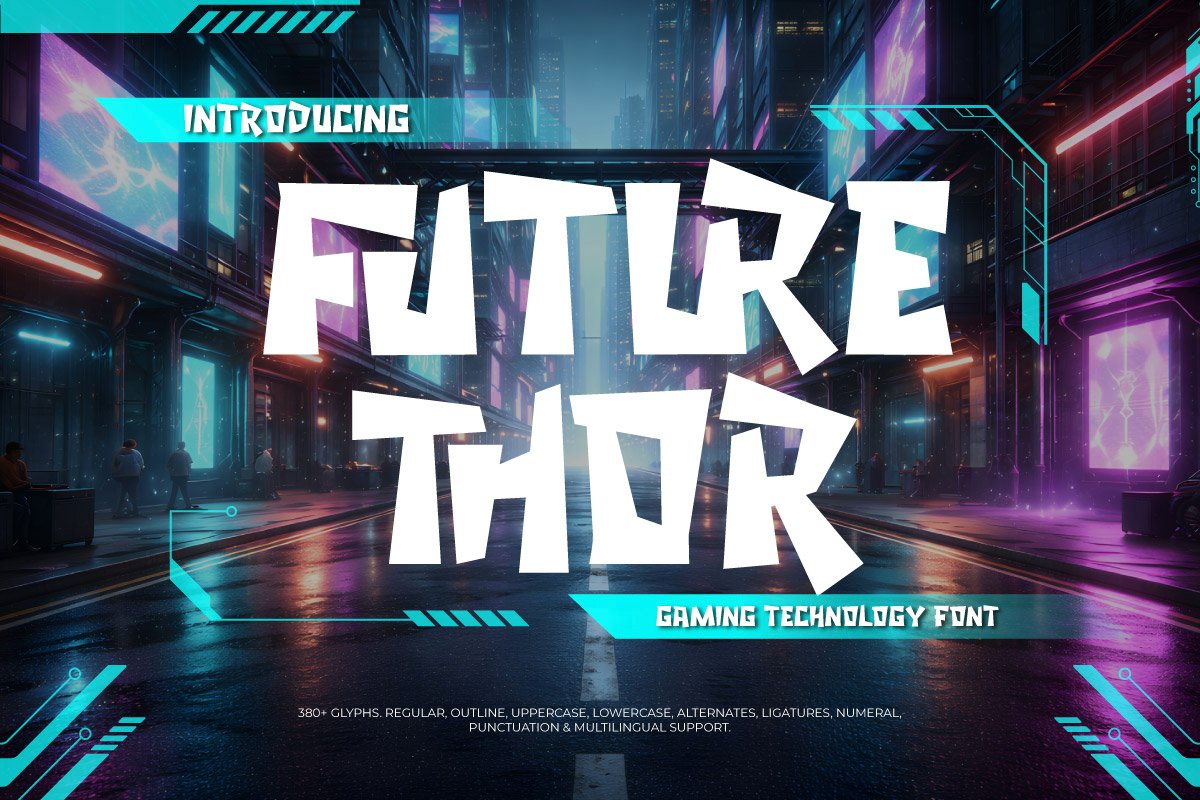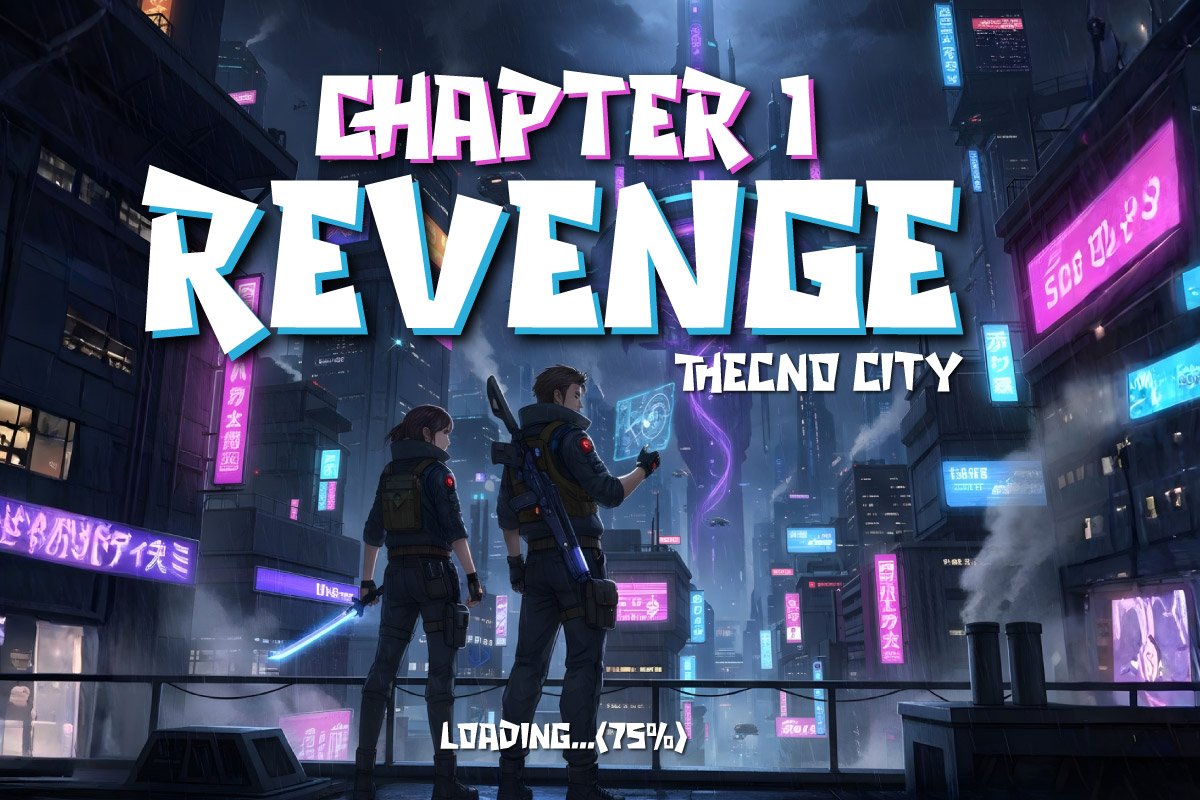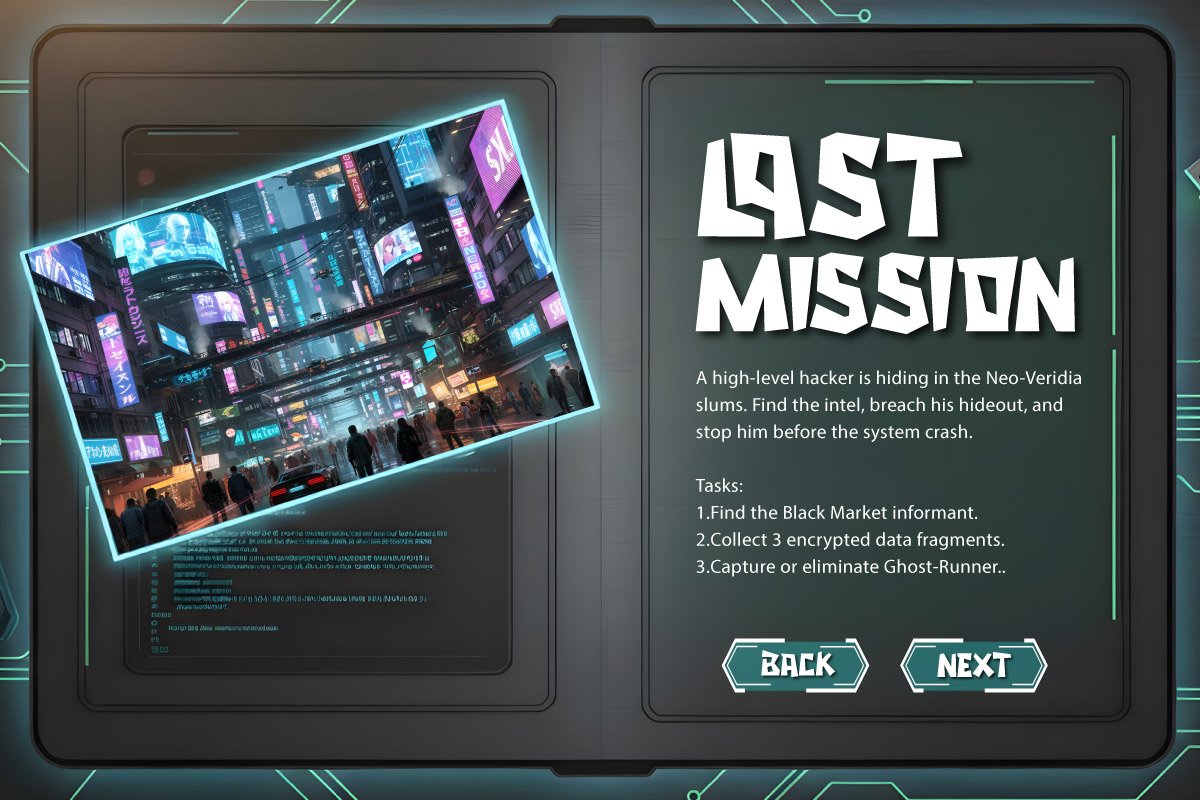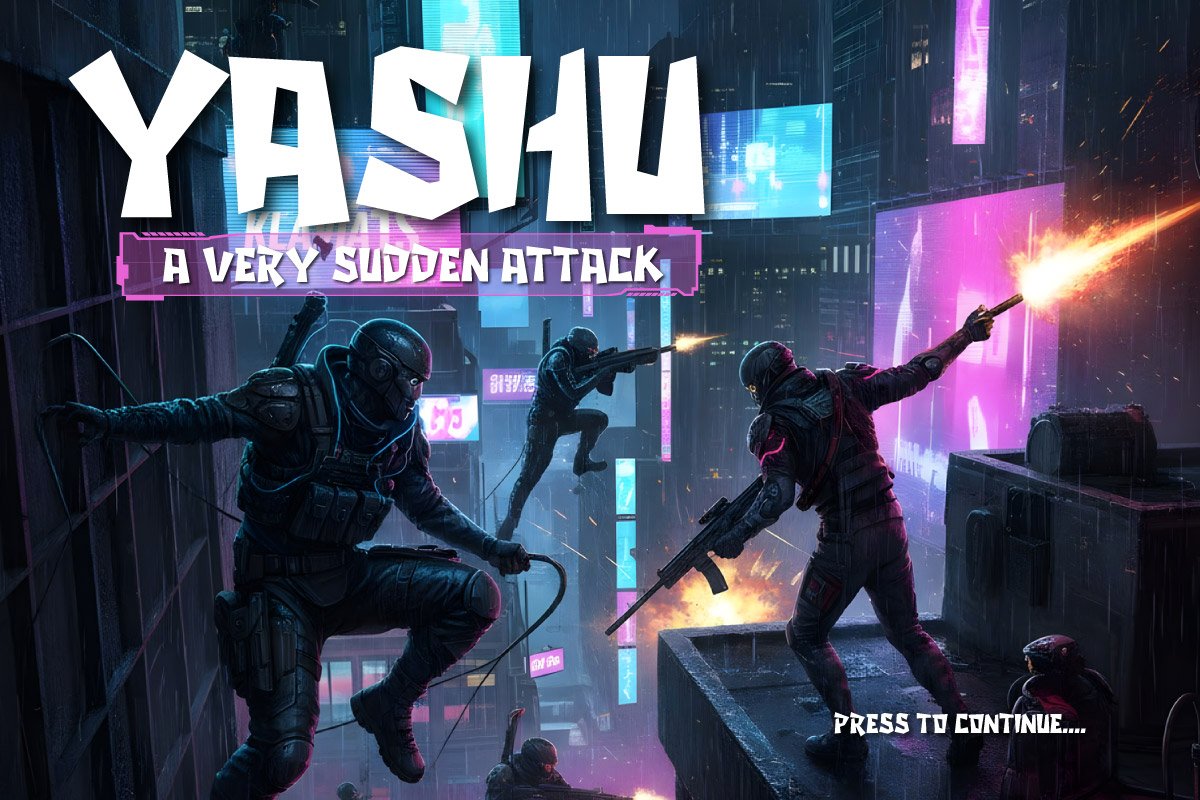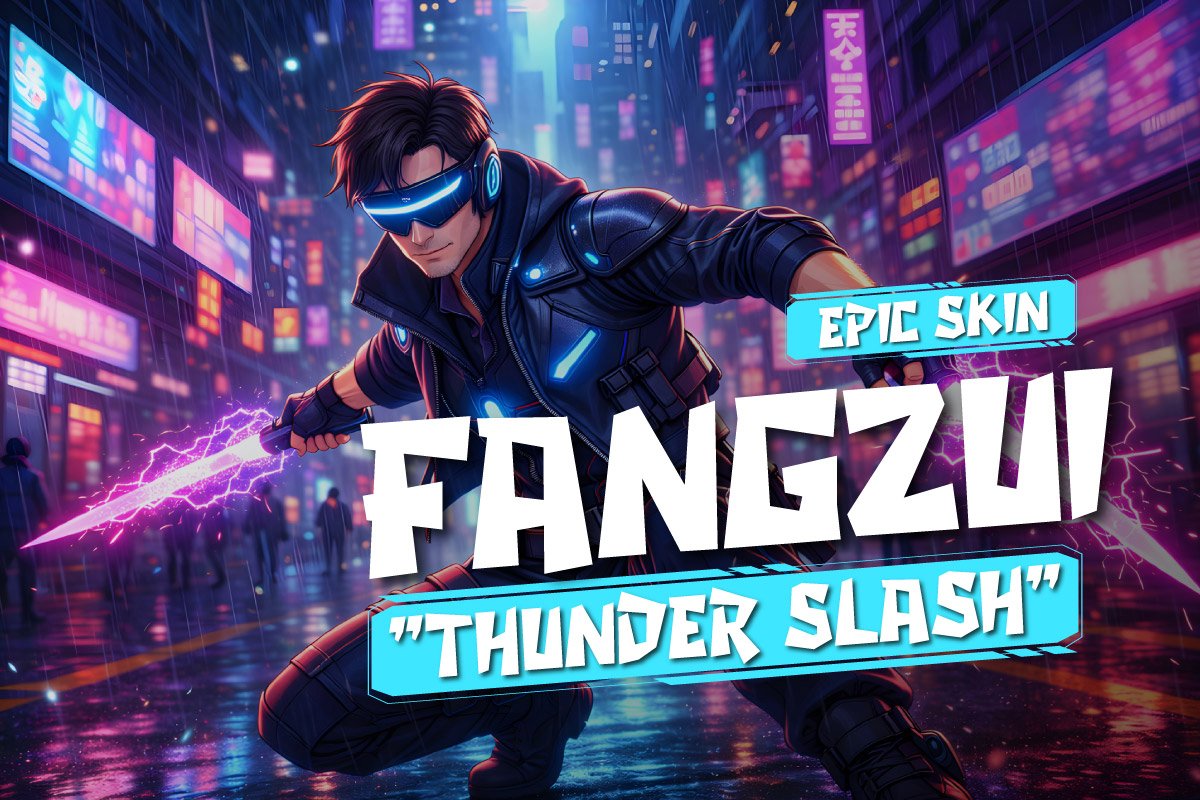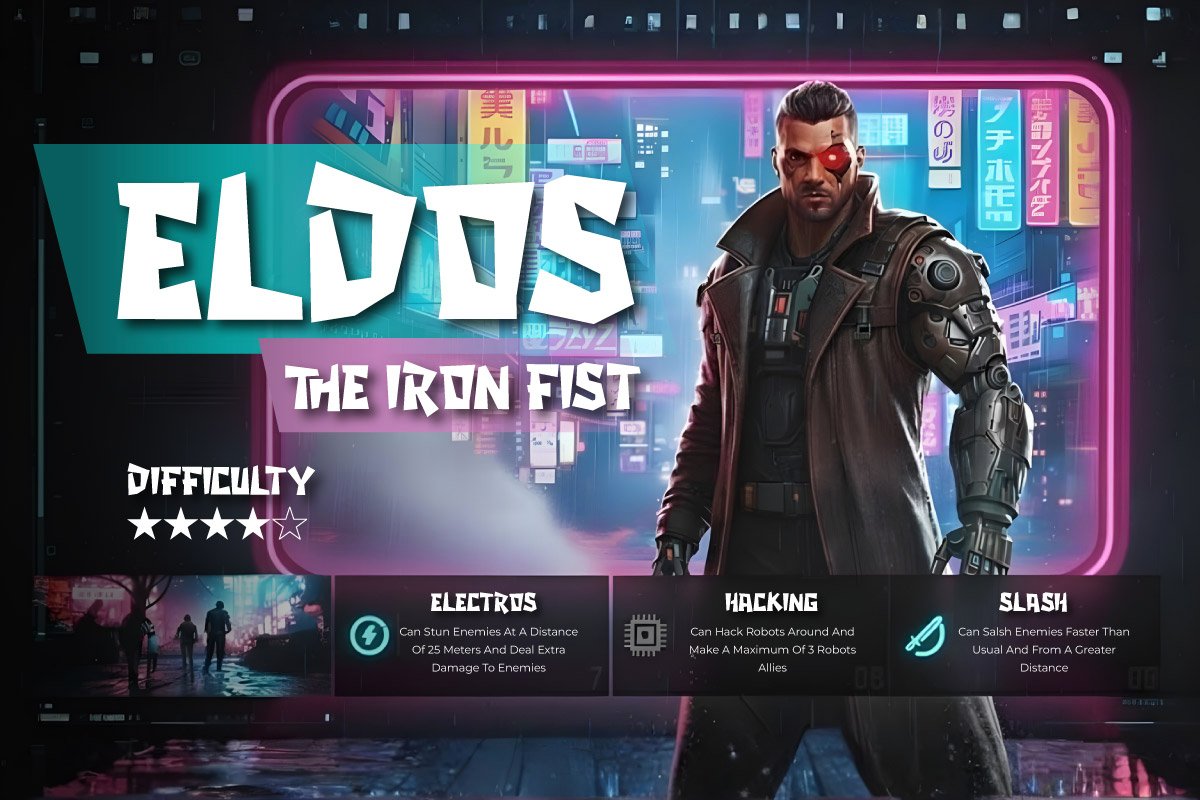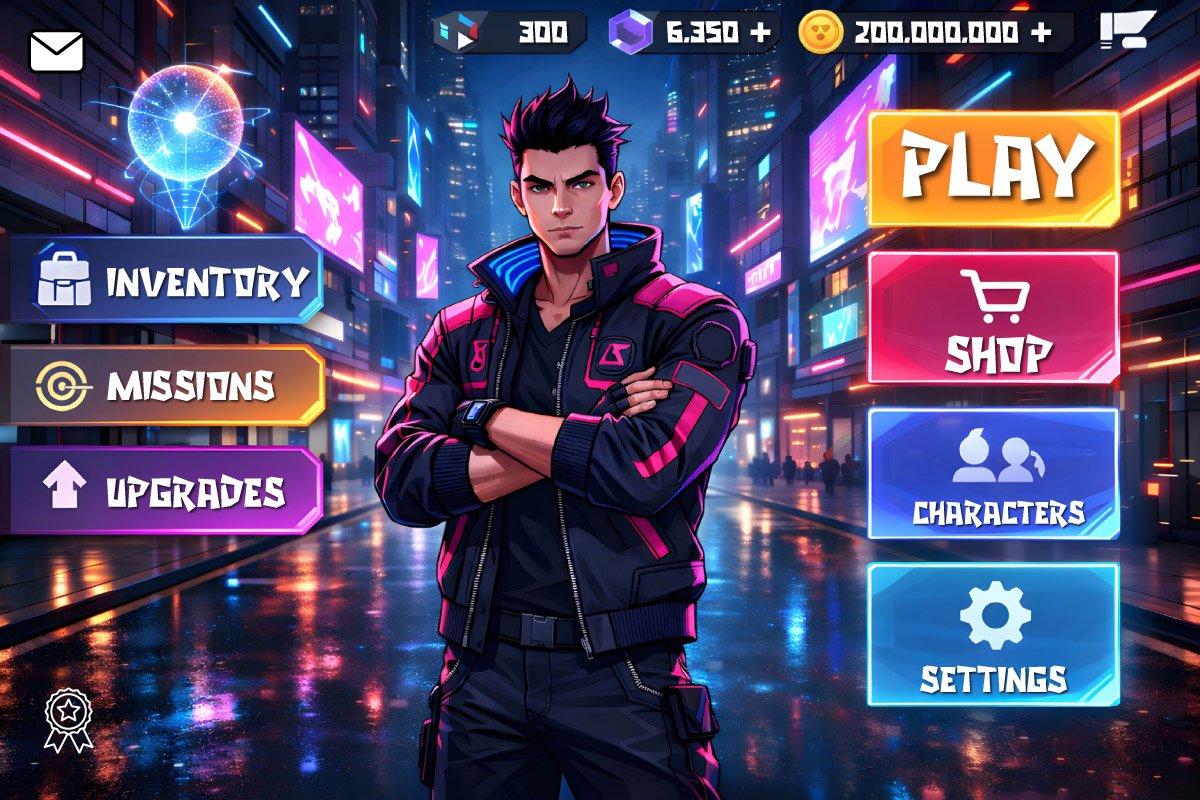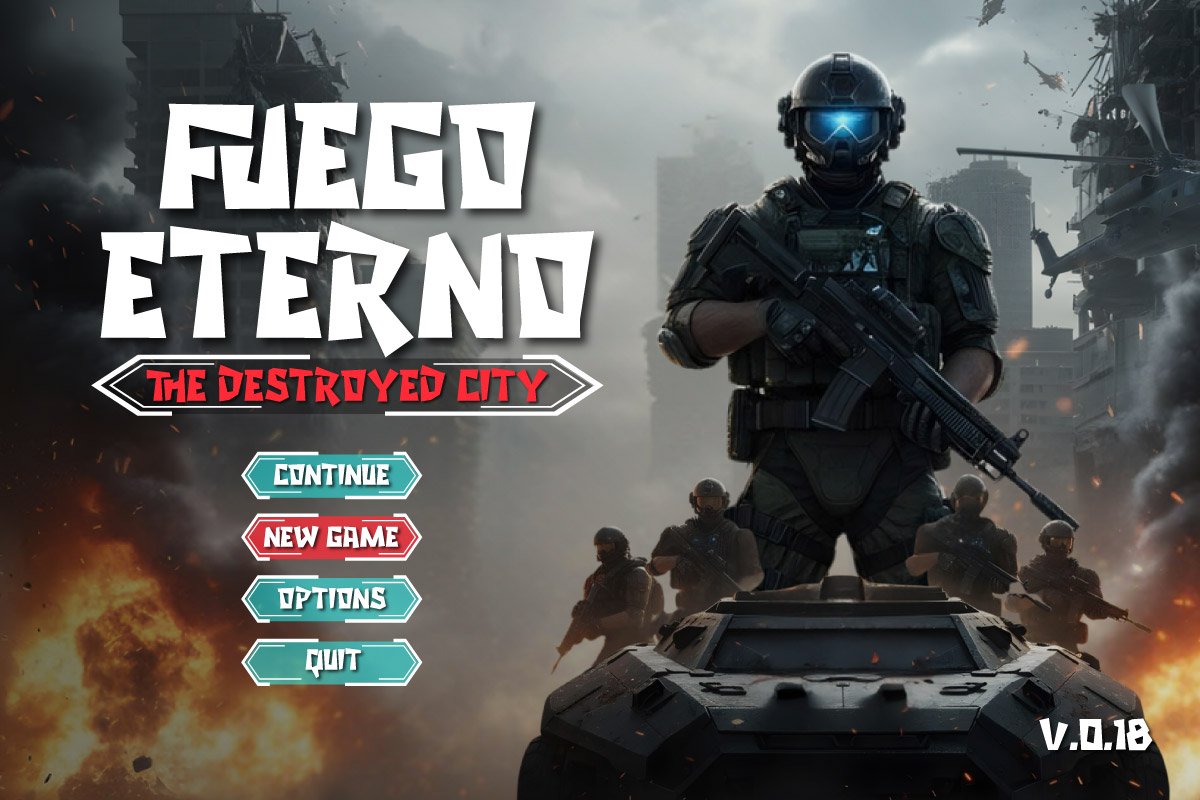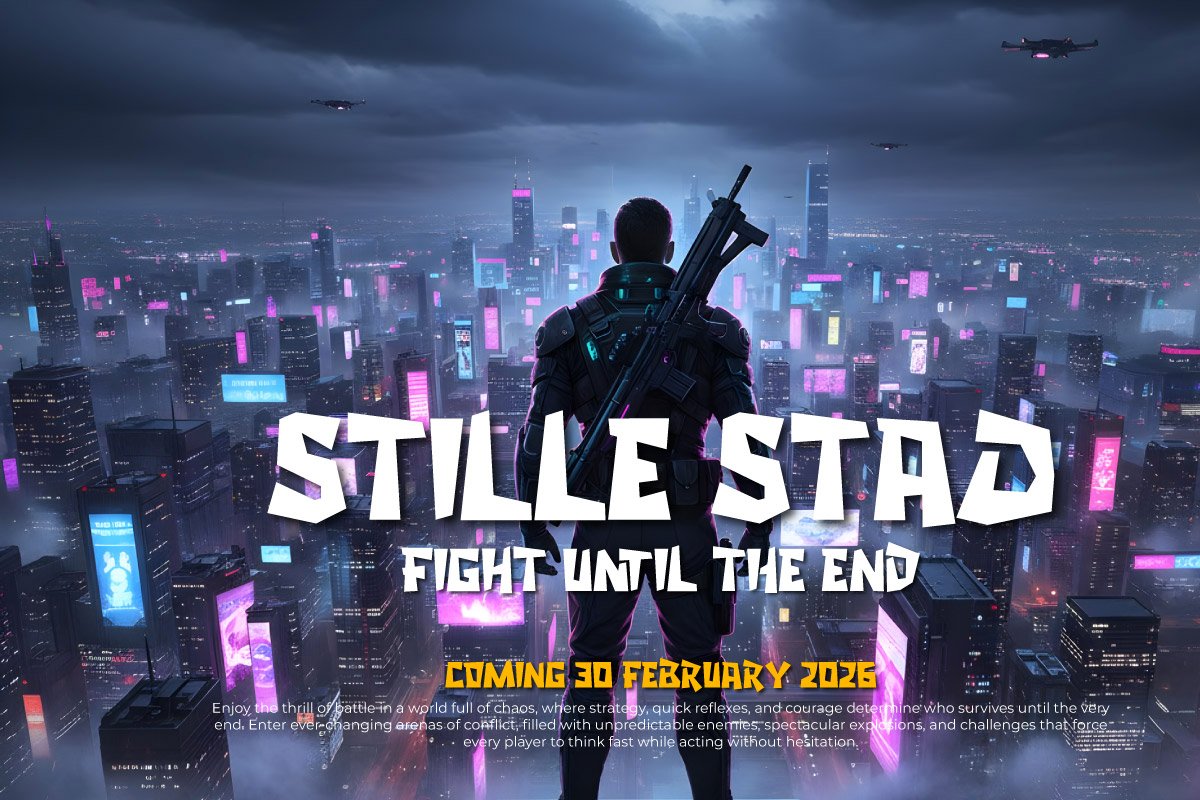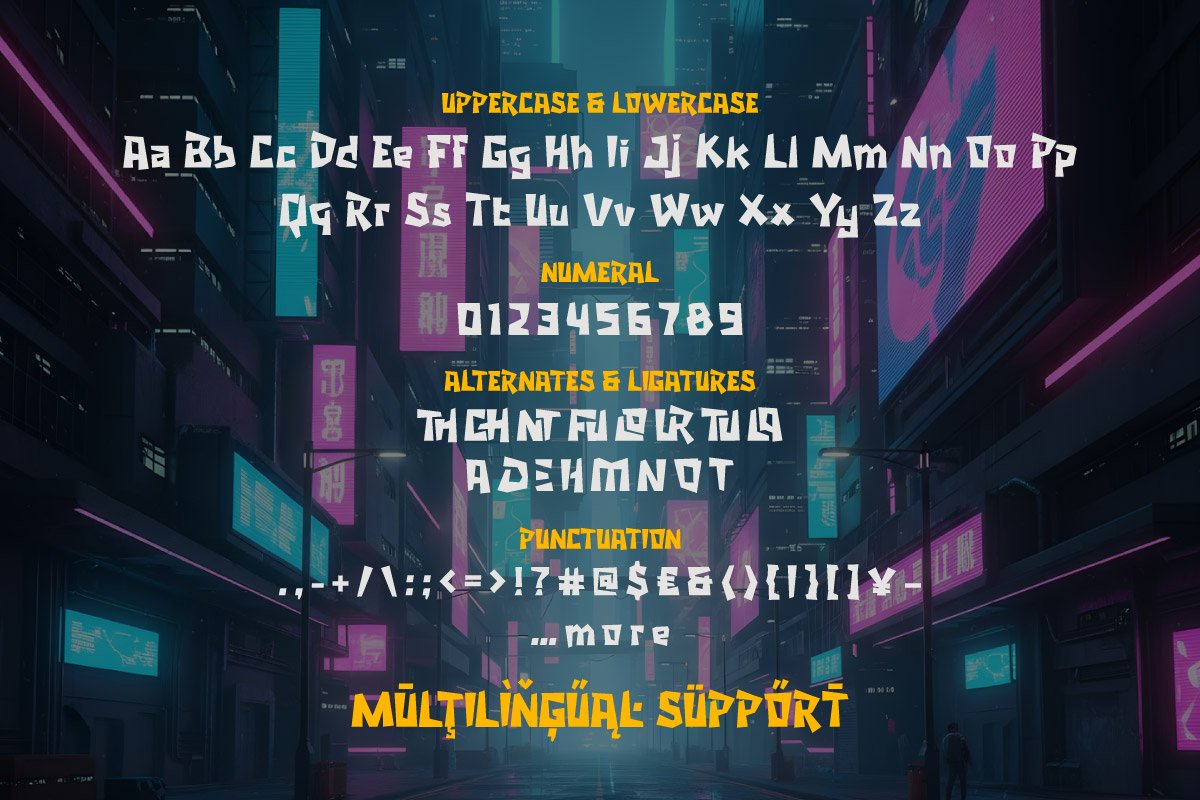
Future Thor – Gaming Technology Display Font
Future Thor is a Futuristic Display typeface designed for tech and sci-fi themed visual needs. The font features bold and dynamic letterforms to provide a modern feel to design projects. Its characteristics are functionally crafted to support visual identities related to the sci-fi world, the tech industry, and futuristic aesthetics.
Its design structure prioritizes visual clarity so the text remains readable across various digital and print media sizes. With precision detail in every character, this font is a practical choice for user interfaces (Game UI), movie posters, and tech branding materials. This helps designers organize a clear and professional information hierarchy within a layout.
As a Futuristic Display Font, Future Thor is equipped with uppercase, lowercase, alternates, and multilingual support. This font is suitable for cyberpunk logos, modern digital content, and brand identities requiring a consistent technical aesthetic. Future Thor offers a solid typography solution for various needs in the creative and technology industries.